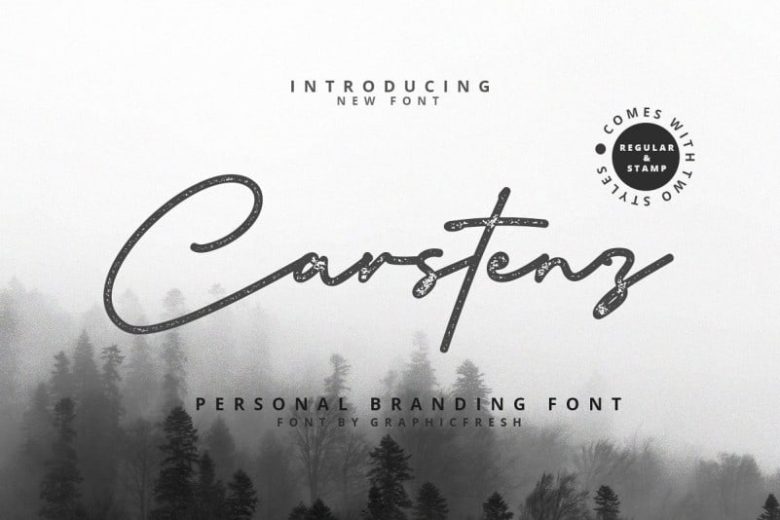
Carstenz Vintage Script Font
Carstenz Vintage Script Font is a monoline script font with retro vintage style. It’s a handmade crafted script typeface, inspired by outdoors activities seeking the beauty of nature and vintage style designs. It’s designed and shared by Graphicfresh.
Using scripts are a good way to make your work instantly classy and timeless. Make editorial or professional pieces come to life with this modern script. It comes in regular and stamp styles, that require no special software at all.
Use Carstenz Vintage Script Font on business cards, homepages, portfolios, invitations, and branding endeavors. you can create modern vintage looks in minutes.